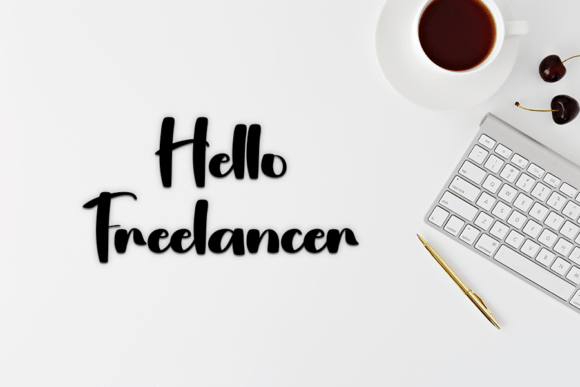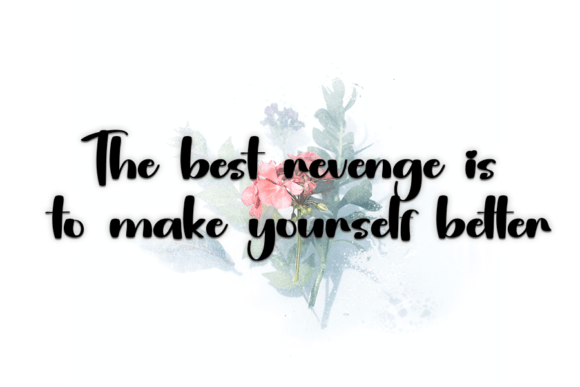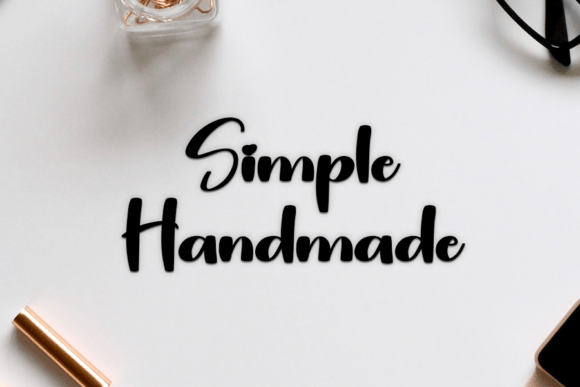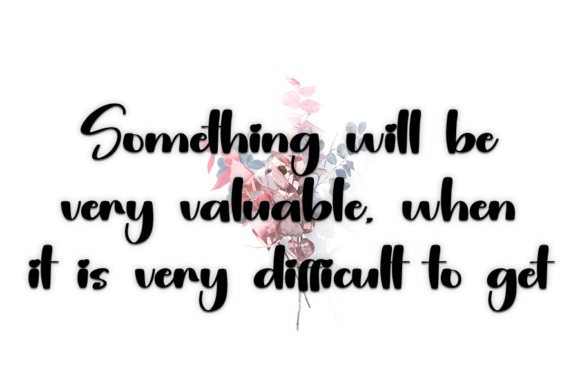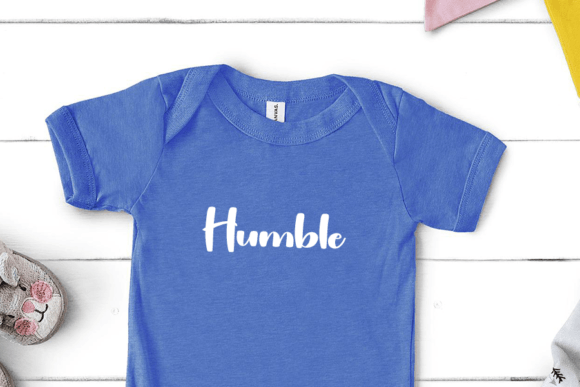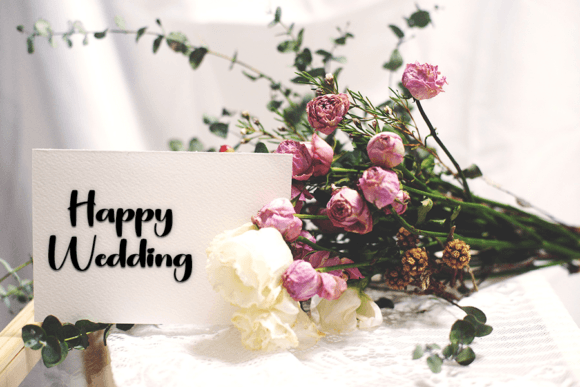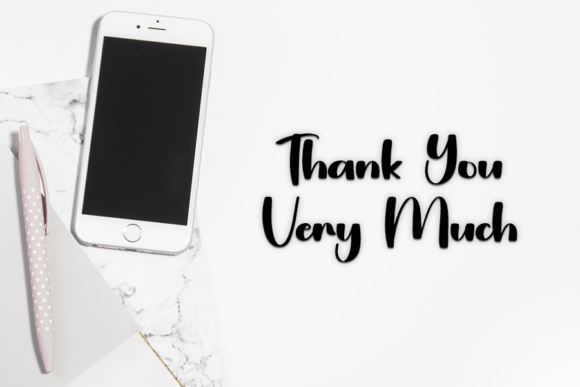
Alive Font
**Alive**: *Where Cool Modernity Enhances Beauty*
Alive isn’t just a font; it’s a delightful fusion of cool modernity and artistic elegance, thoughtfully crafted to amplify the beauty of your creative projects. With its captivating curves, this handwritten font exudes a sense of contemporary style that effortlessly elevates various types of content.
What distinguishes Alive is its remarkable ability to seamlessly blend modern coolness with an enduring appreciation for beauty. The font’s gracefully curved characters infuse an artistic touch into your projects, making it an excellent choice for a wide range of design applications. Whether you’re working on branding materials, social media graphics, creative writing, or any other visual content, Alive is the font that effortlessly enhances your designs.
Alive strikes the perfect balance between modern aesthetics and timeless allure, making it a versatile and attractive option for projects that demand both contemporary appeal and enduring beauty.
In branding, Alive brings a sense of stylish authenticity, making it a valuable asset for logos and visual identities. It possesses the power to convey a brand’s modern character and values, connecting effectively with its target audience.
For creative writing or artistic endeavors, Alive’s captivating curves transform your content into a visually engaging experience. Social media posts featuring Alive radiate style and elegance, capturing the attention of your audience and enhancing the impact of your content.
One of Alive’s most remarkable qualities is its adaptability. It transitions effortlessly from a formal and polished tone to a more casual and friendly one, making it suitable for a wide array of creative projects. Its ability to complement different styles and themes ensures that it remains a cherished choice for designers and creators across diverse industries.
In summary, Alive transcends being merely a font; it’s a design asset that skillfully combines cool modernity with a timeless appreciation for beauty. Its unique blend of captivating curves and enduring charm positions it as an indispensable tool for anyone looking to infuse sophistication and style into their visual communication. Embrace the cool modernity of Alive, and watch your creative projects come to life with enhanced beauty and contemporary flair.